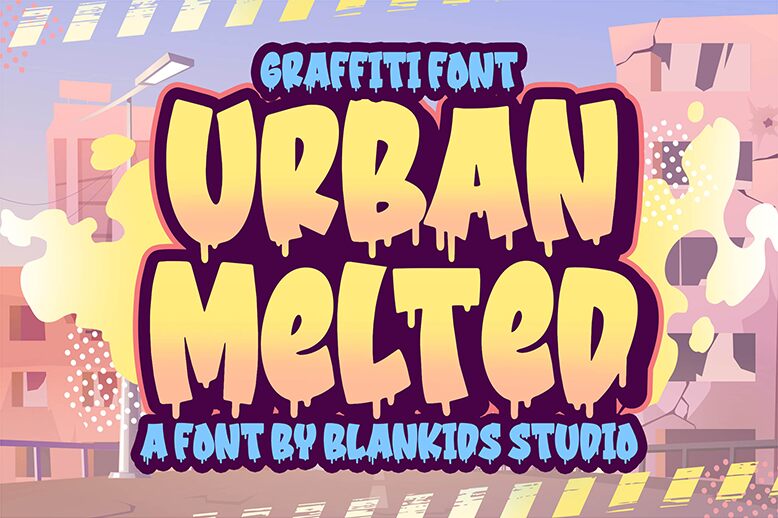
Urban Melted, a bold and expressive graffiti font designed by Bangkit Tri Setiadi, adds a vibrant touch to your projects. With its edgy and rebellious style, this semi-condensed typeface is perfect for urban-themed designs, streetwear brands, hip-hop album covers, and skateboard graphics. Embrace the unconventional and let Urban Melted breathe life into your creative endeavors with its daring strokes and captivating presence. Whether you're working on an art poster or a magazine spread, this font will make your content stand out in the digital landscape.
Urban Melted by Blankids Studio
Urban Melted